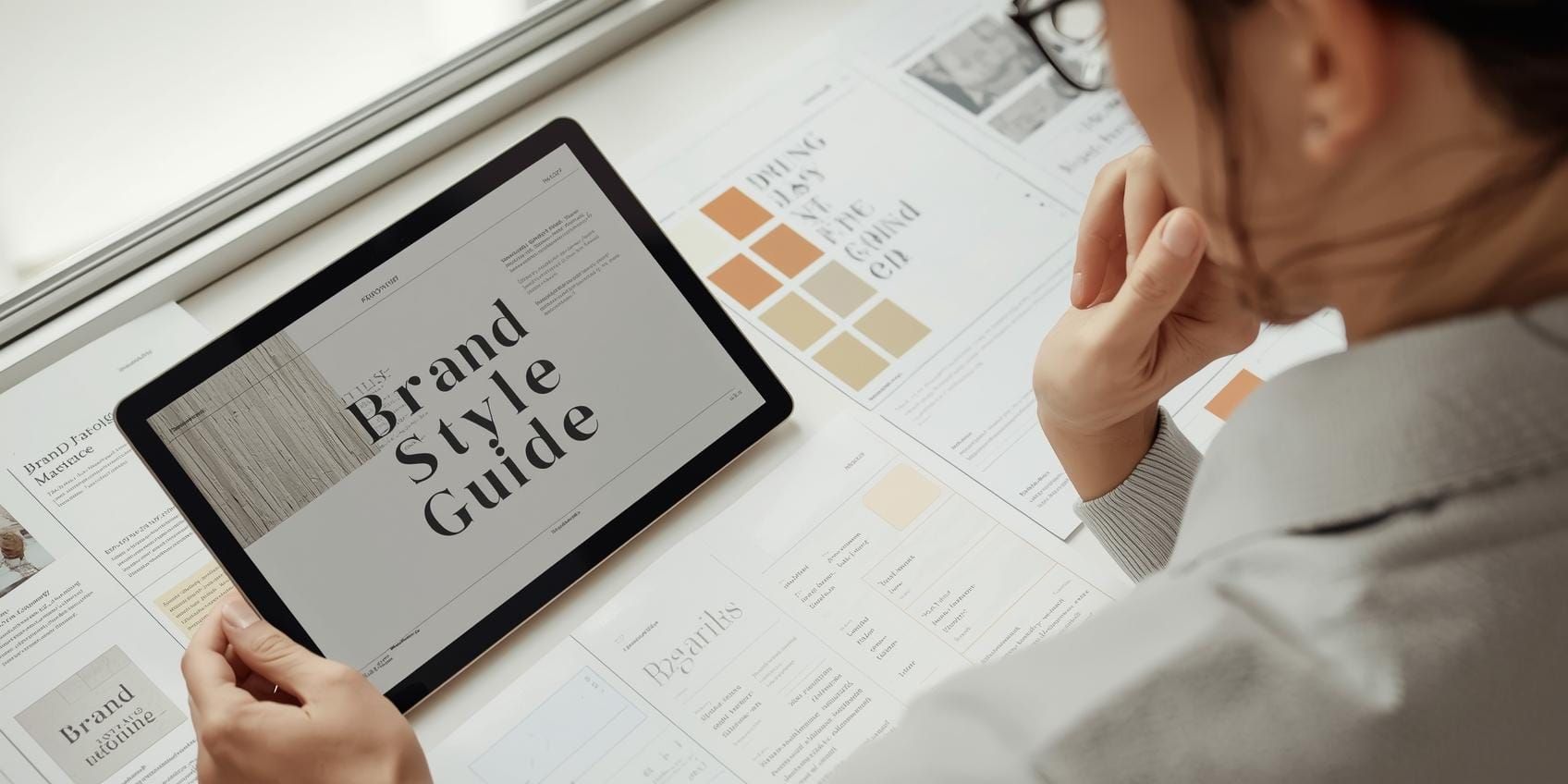
Brand Style Guide How to Make Branding Feel Premium
“Premium” branding isn’t about using gold colors or expensive mockups. It’s about consistency, clarity, and restraint. When your visuals follow clear rules, people feel trust. When your typography is calm and your spacing is clean, your brand instantly looks more expensive. That’s why a brand style guide is one of the highest ROI tools for founders, creators, and designers. It turns taste into a system that your team can actually follow.
In this guide, you’ll learn how to build a brand style guide that makes branding feel premium across your website, social posts, packaging, and client materials.
What “Premium” Looks Like in Practice
Premium brands tend to share a few visible traits:
• clear hierarchy (you know what matters first)
• strong readability (no low-contrast text)
• limited fonts and colors (restraint)
• consistent spacing (calm layouts)
• predictable components (buttons, cards, headers)
• high-quality imagery (cohesive look)
A premium brand style guide doesn’t just describe these ideas. It gives rules and examples so your brand stays consistent as you grow.
1. Brand Style Guide to Define Your Premium Brand Direction
Before rules, define direction. A brand that tries to be everything rarely feels premium.
Pick 3 brand traits
Examples:
• calm, modern, confident
• warm, crafted, trustworthy
• bold, clean, energetic
Choose a visual lane
• minimal modern
• editorial premium
• soft luxury
• bold and playful (still can be premium if controlled)
Write this at the top of your brand style guide. It becomes your filter for every design decision.
2. Brand Style Guide to Create a Logo System that Looks Expensive
Premium brands don’t have “one logo file.” They have a system.
Include these logo versions
• primary logo
• secondary logo (stacked or horizontal)
• icon mark or monogram
• one-color version
• light-on-dark version
Add rules that prevent mistakes
• minimum size
• clear space
• allowed backgrounds
• do/don’t examples (stretching, shadows, recolors)
This is where a brand style guide immediately raises quality. It stops sloppy logo usage across touchpoints.
3. Brand Style Guide to Build a Color System Using Roles
Premium color usage is controlled. Instead of “here are 7 colors,” define roles.
Core color roles
• primary brand color
• secondary color
• accent color (use sparingly)
• background colors (light + dark)
• text colors (primary + secondary)
• border color
• status colors (optional)
Add “approved pairs”
List combinations you want everyone to use:
• text on background
• button fill + button text
• link color on background
Role-based color rules make your brand style guide usable, not decorative.
4. Brand Style Guide to Define Typography that Stays Clean
Typography is the fastest premium signal. Most brands ruin it by using too many fonts.
Premium typography rules
• 2 fonts max (headline + body)
• use weights and sizes for variation
• avoid thin fonts for small text
• keep line spacing comfortable
• don’t overuse all caps
Create a type scale
Include:
• H1, H2, H3
• body
• small
• caption
When your type scale is set, your brand style guide becomes a production tool, not a moodboard.
5. Brand Style Guide to Set Spacing and Layout Rules (The Secret Sauce)
Spacing is the difference between “nice” and “premium.”
Use a spacing scale
Start simple:
8 / 16 / 24 / 32 / 48 / 64
Define:
• page margins
• section spacing
• card padding
• button height and padding
Premium layouts feel calm because spacing is predictable. Your brand style guide should lock these rules so every designer creates consistent layouts.
6. Brand Style Guide to Define Imagery Rules for A Cohesive Look
Even great typography can’t save inconsistent imagery.
Create simple image rules
• photography style (bright vs moody, warm vs cool)
• composition style (close-up vs wide, centered vs candid)
• color treatment (natural, slightly desaturated, warm filter)
• backgrounds (clean studio, lifestyle scenes, textured paper)
If you use illustrations:
• pick one illustration style and stick to it
• define line weight and color usage
• avoid mixing cartoon + realistic in the same brand
A premium brand style guide makes imagery choices repeatable.
7. Brand Style Guide to Define UI Components (For Web and Digital)
If you have a website or app, basic UI rules keep everything consistent.
Components to define
• buttons (primary, secondary, text link)
• form fields (default, focus, error)